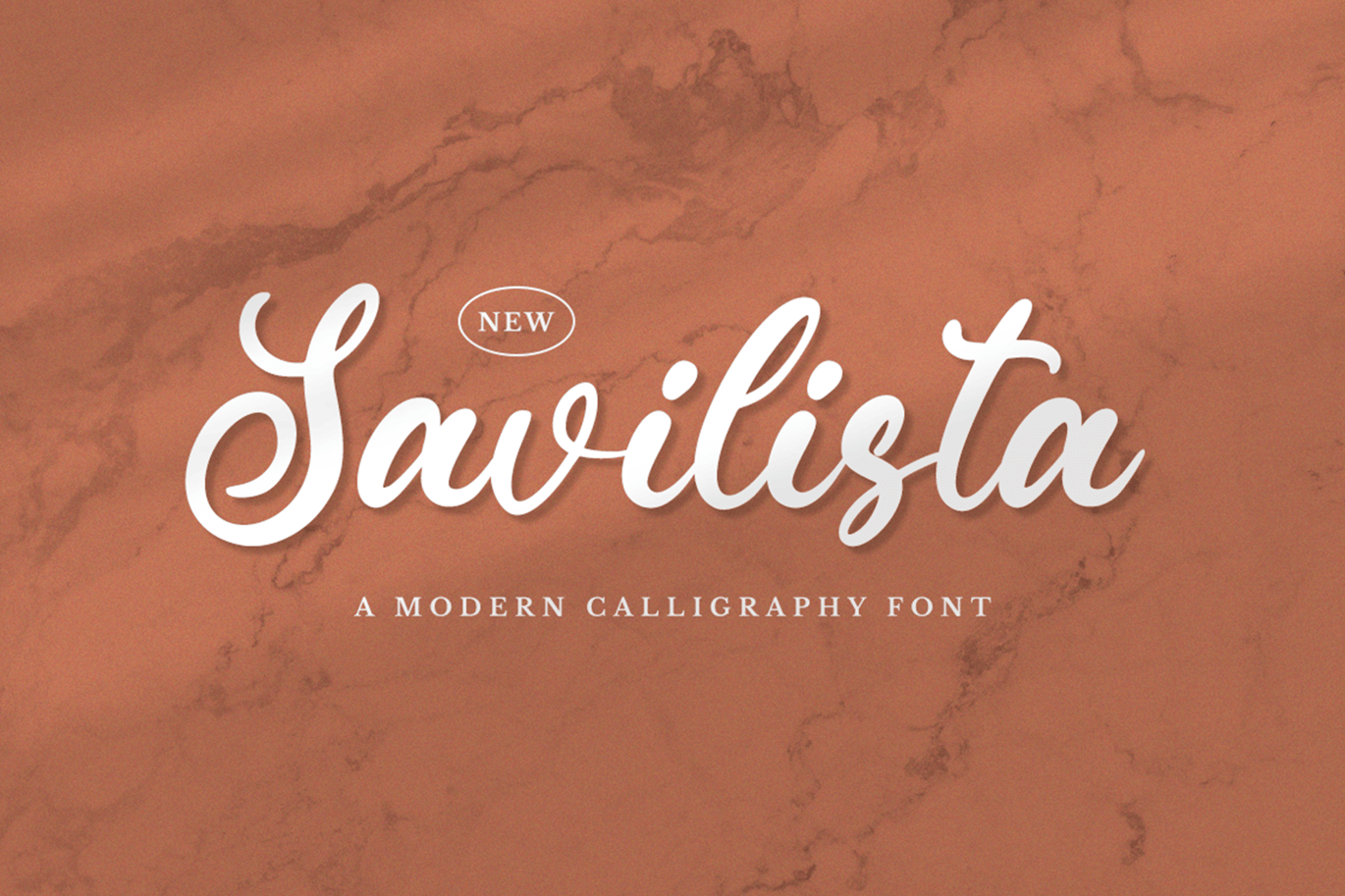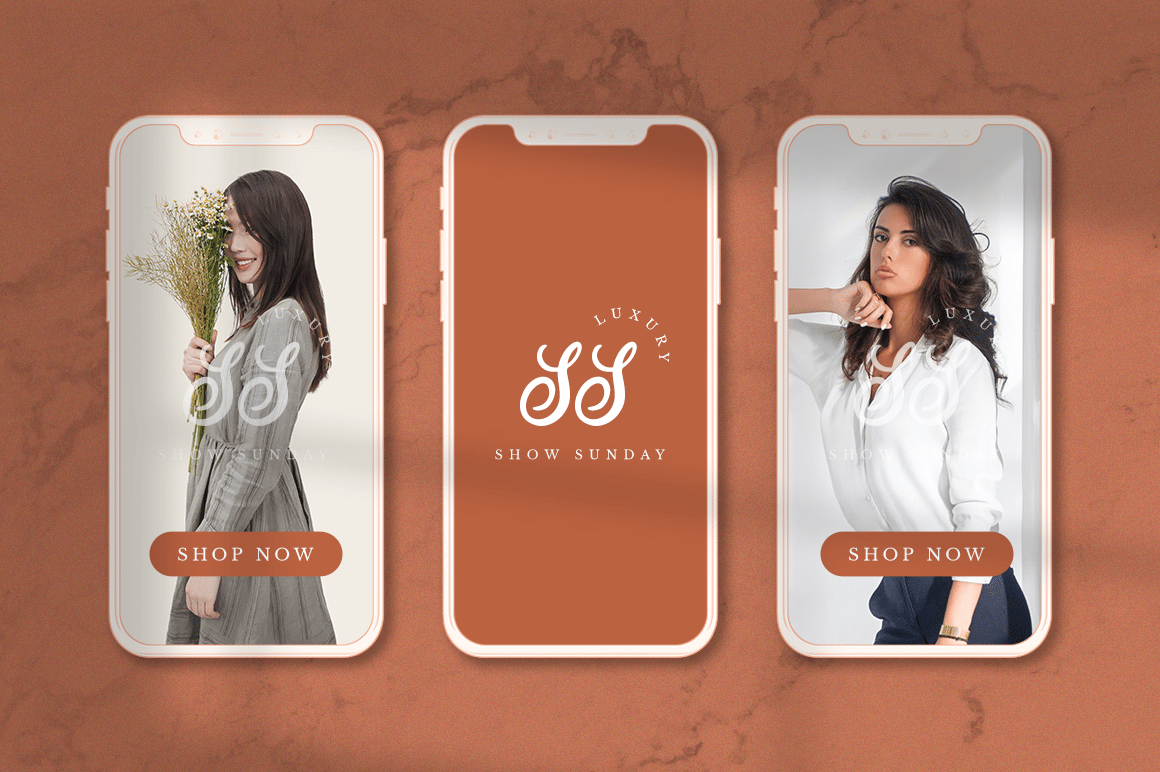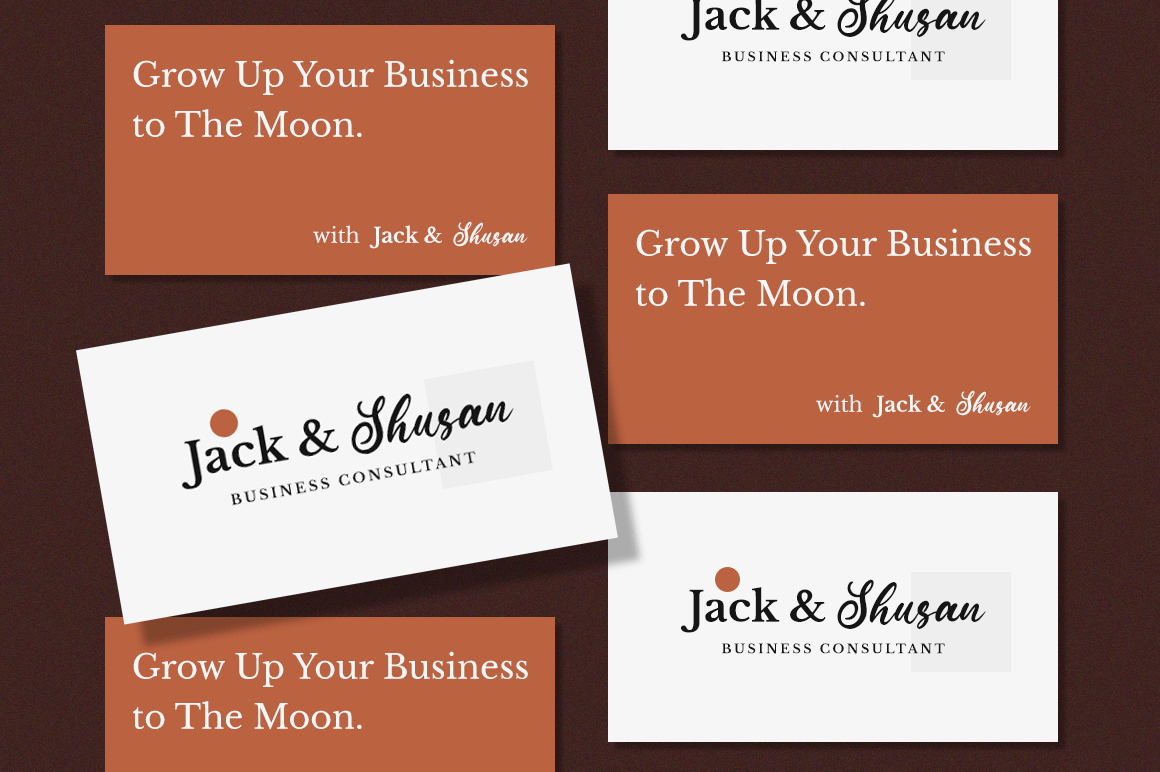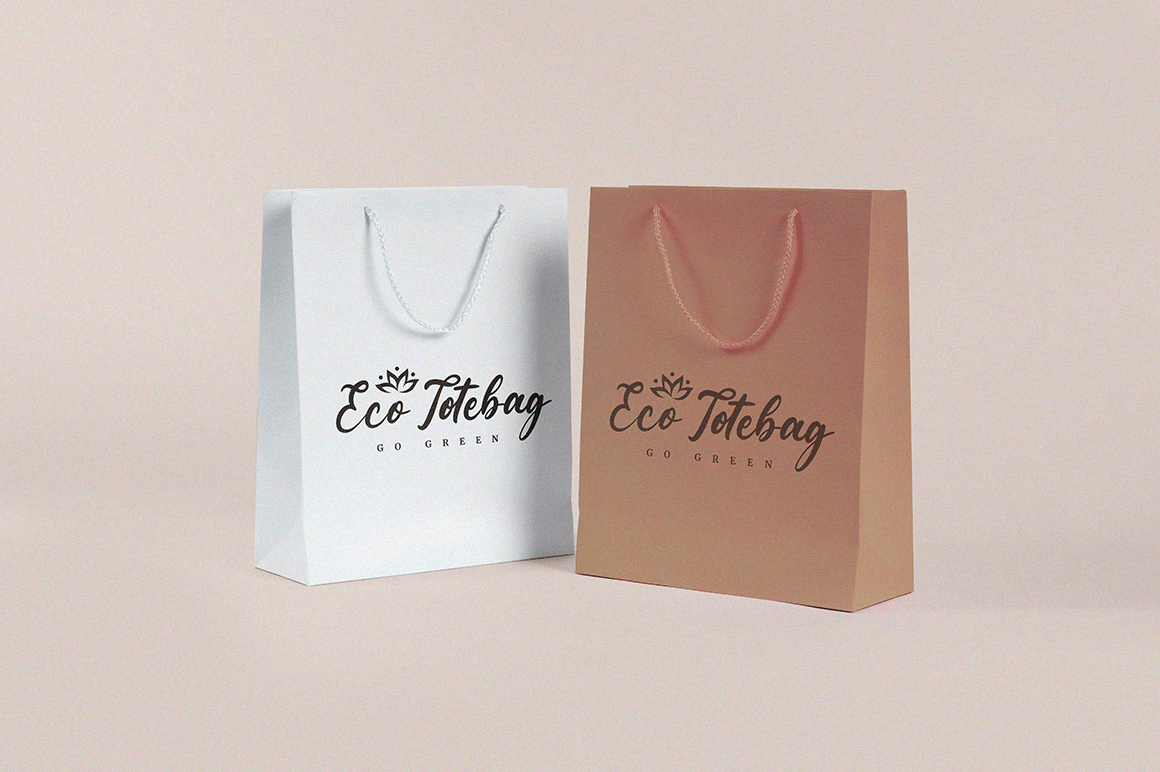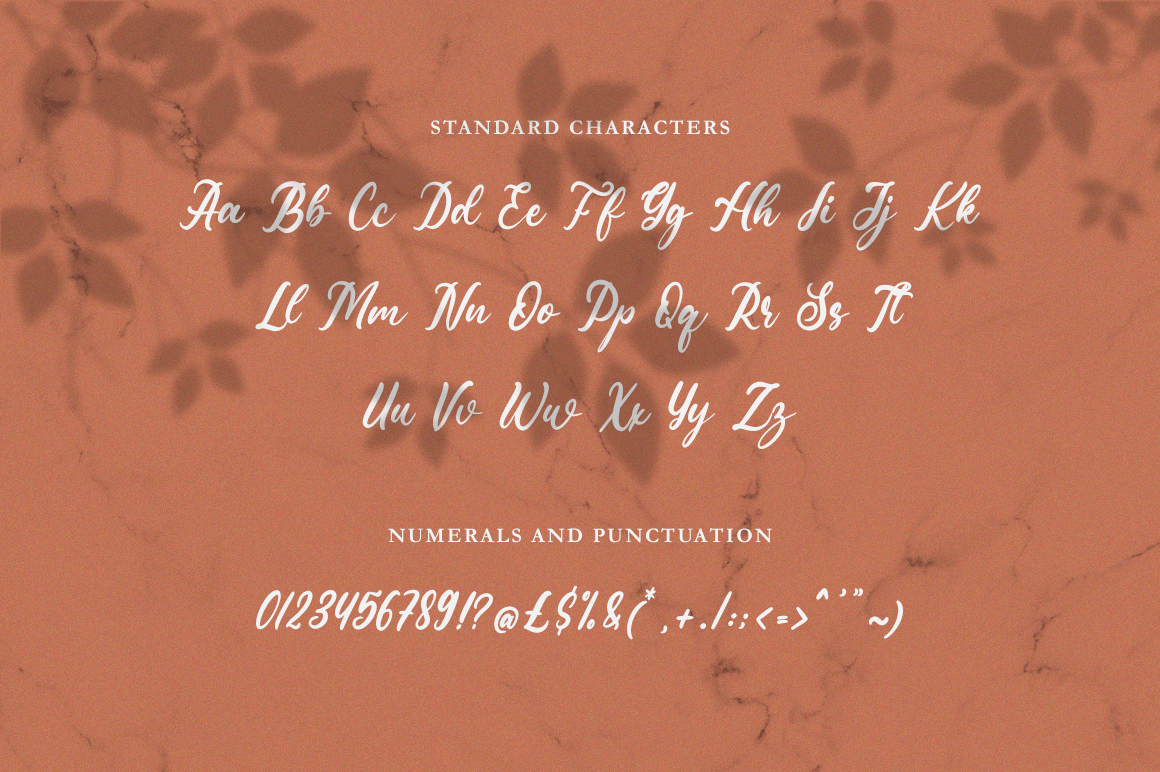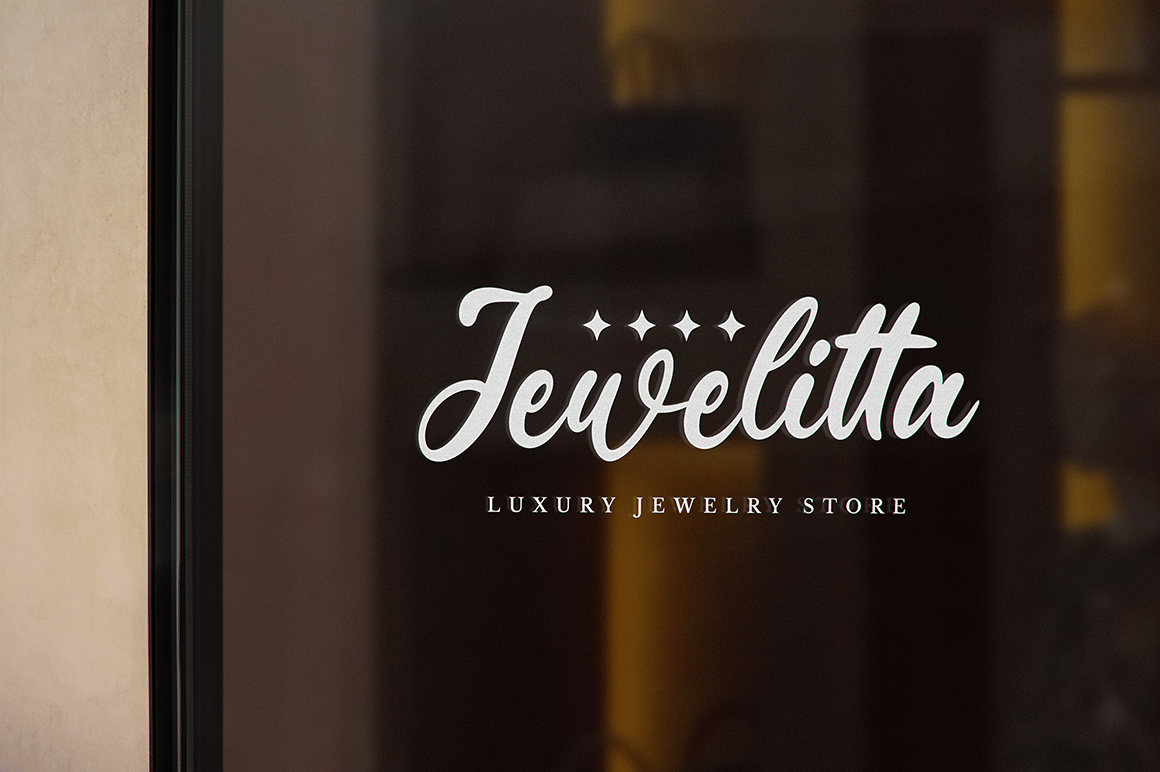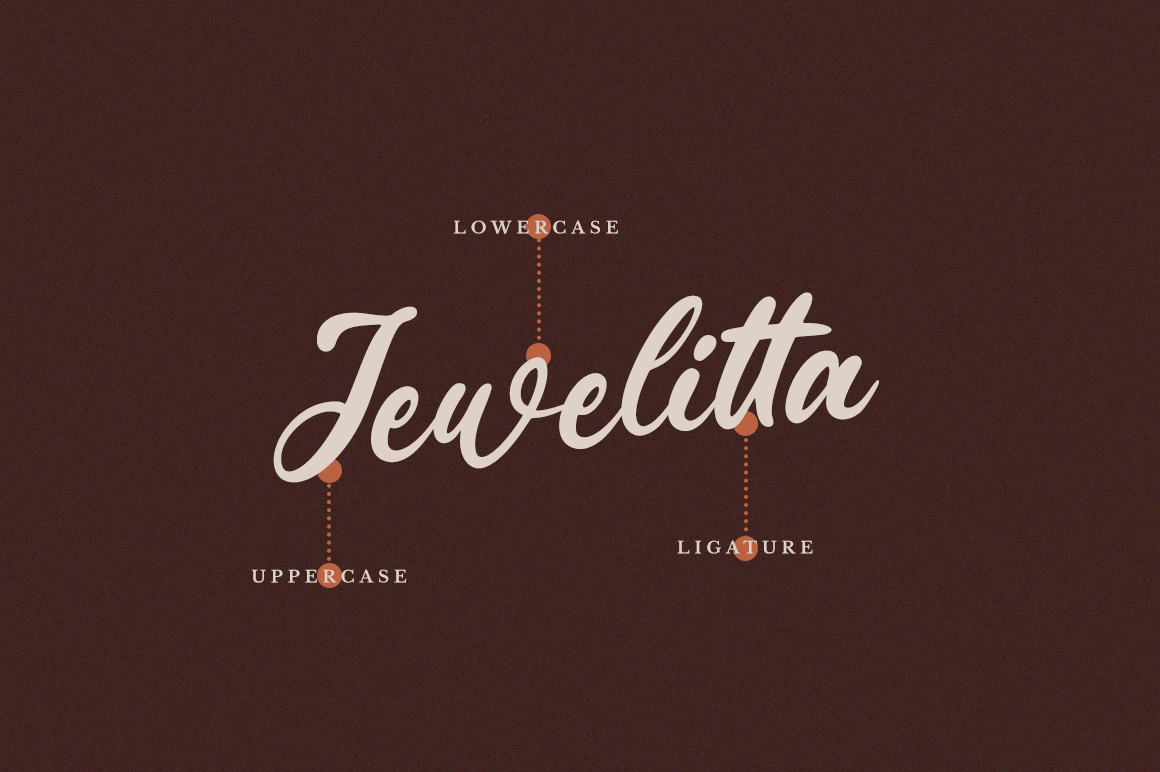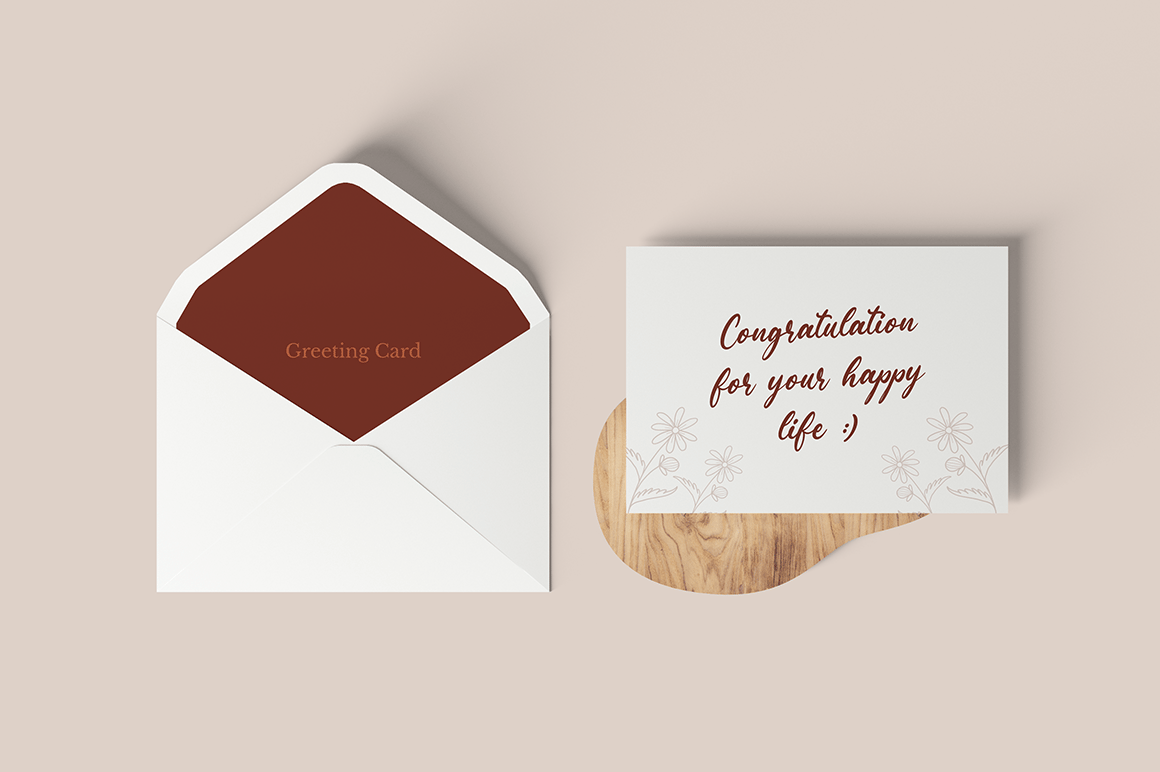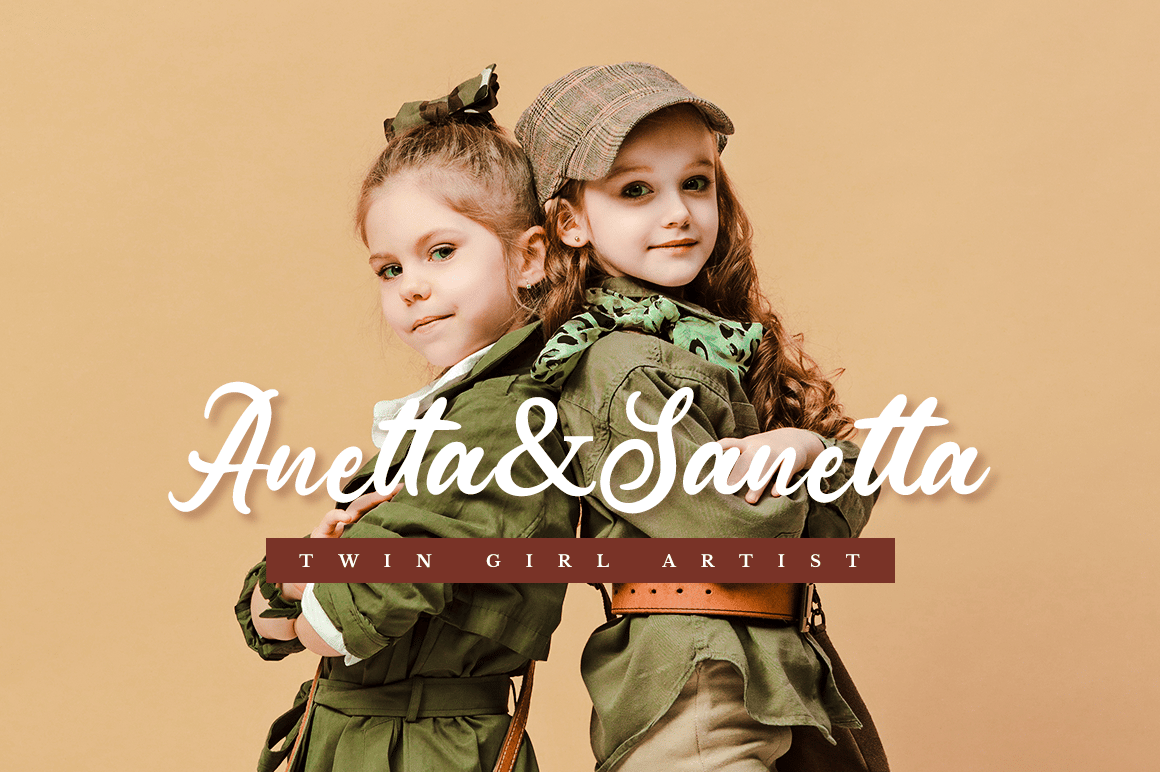
Savilista – Elegant Font
Savilista is a beautiful and elegant handwritten font. Delicate and well balanced, this font will brighten up each of your designs.